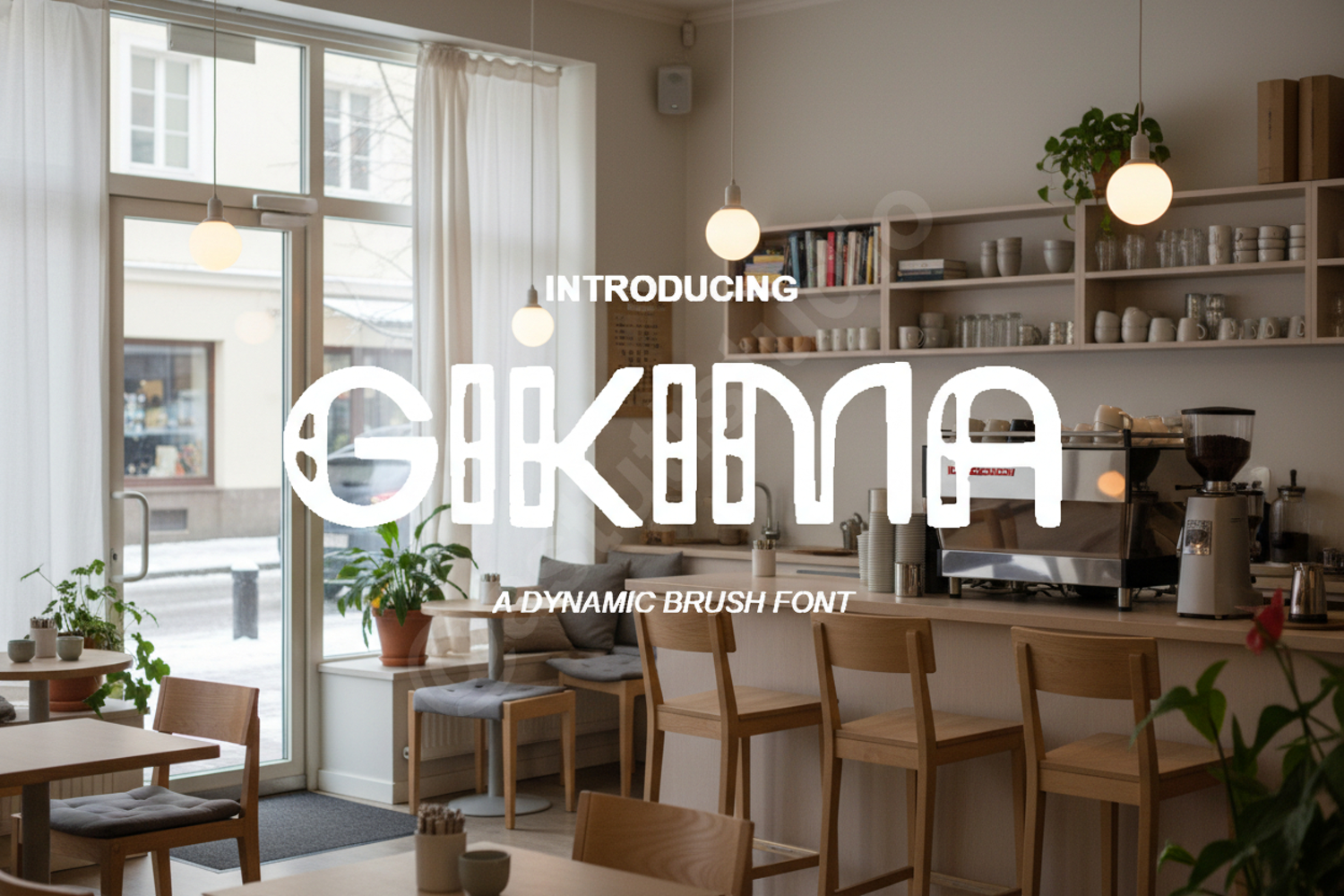
Gikima - Modern Sophisticated Serif Font
Gikima
Elevate your creative projects with Gikima, a premium serif font that seamlessly blends modern sophistication with timeless elegance. Designed with precision, Gikima features clean lines and unique character shapes that make it stand out in any professional setting. Whether you are working on a high-end brand identity or a minimalist editorial layout, this font provides the versatility and polish required for modern design.
- Branding and Identity: Perfect for luxury logos and corporate branding.
- Editorial Design: Ideal for magazine headlines, book covers, and high-end layouts.
- Wedding Stationery: Adds a touch of class to invitations and save-the-date cards.
- Social Media: Create eye-catching quotes and elegant promotional graphics.
- Web Design: Clean and legible for headers and professional website interfaces.